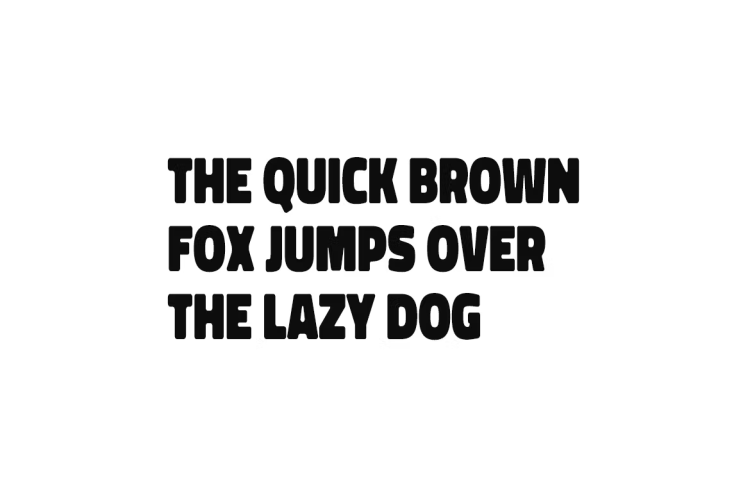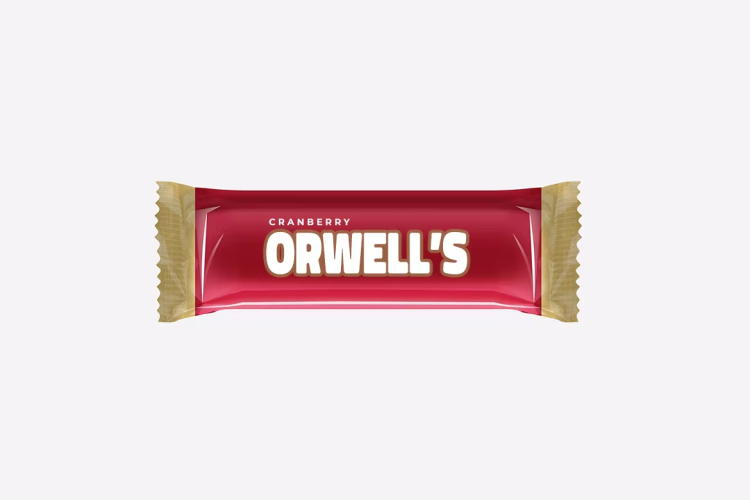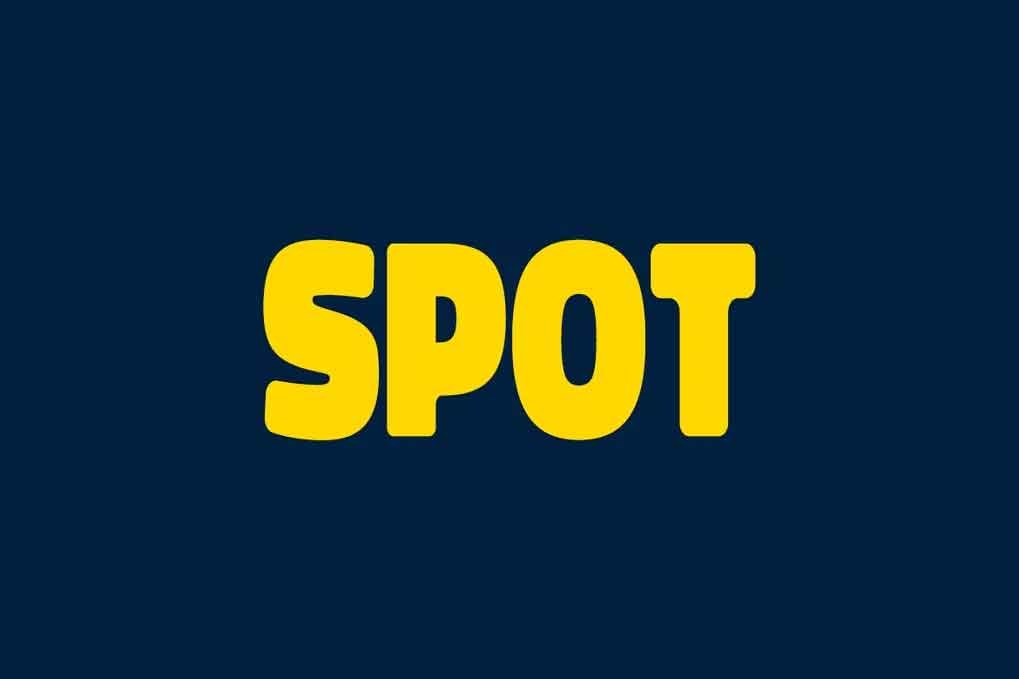
SPOT Typeface Font
SPOT is a unique and modern all-caps typeface for headlines, big text, branding, logotypes & display usage. This font is also perfect for creating outstanding logos, pro…
SPOT is a unique and modern all-caps typeface for headlines, big text, branding, logotypes & display usage. This font is also perfect for creating outstanding logos, promotional content and marketing graphics that can really grab attention from your visitors. Please see the examples shown above to get an idea about the capability of this typeface.
Where SPOT Typeface Font works best
SPOT Typeface Font stays legible at small sizes, which makes it a strong choice for navigation, buttons and dashboards in web design and app interfaces.
Clean sans serifs like SPOT Typeface Font are the default language of SaaS, fintech and product branding.